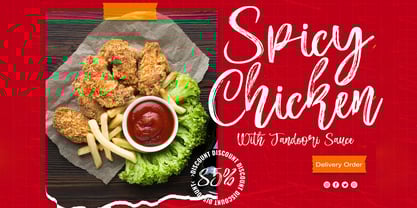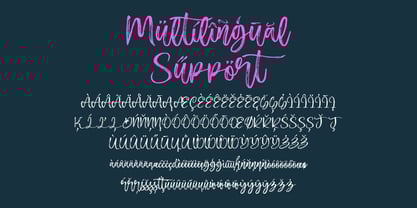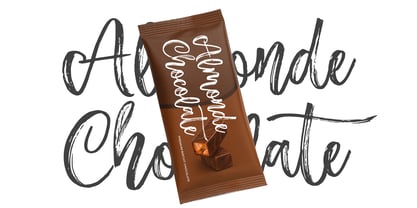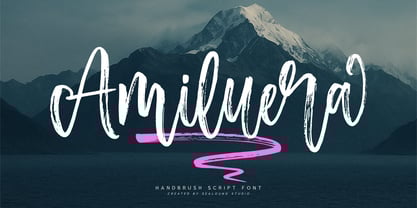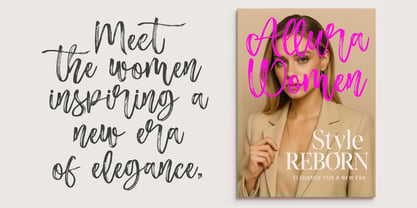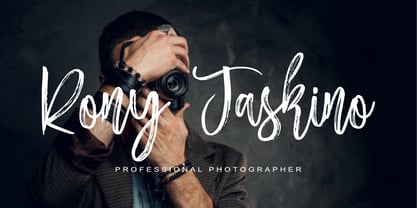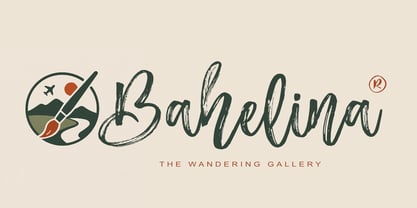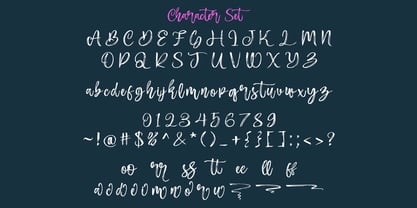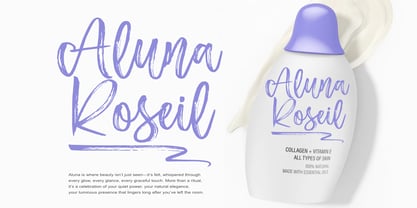
Amiluera
by Sealoung
The Amiluera Font Family was designed by Saiful Anwar and published by Sealoung. Amiluera contains 1 styles. More about this family
Introducing Amiluera, a luxurious handbrush script font that embodies elegance, flow, and timeless charm. With its smooth strokes and graceful curves, Amiluera is designed to bring a romantic and sophisticated touch to your creative work.
Inspired by modern calligraphy and high-fashion branding, Amiluera offers beautifully connected letterforms with fluid movement making it perfect for wedding invitations, feminine logos, social media graphics, product packaging, and stylish editorial designs.